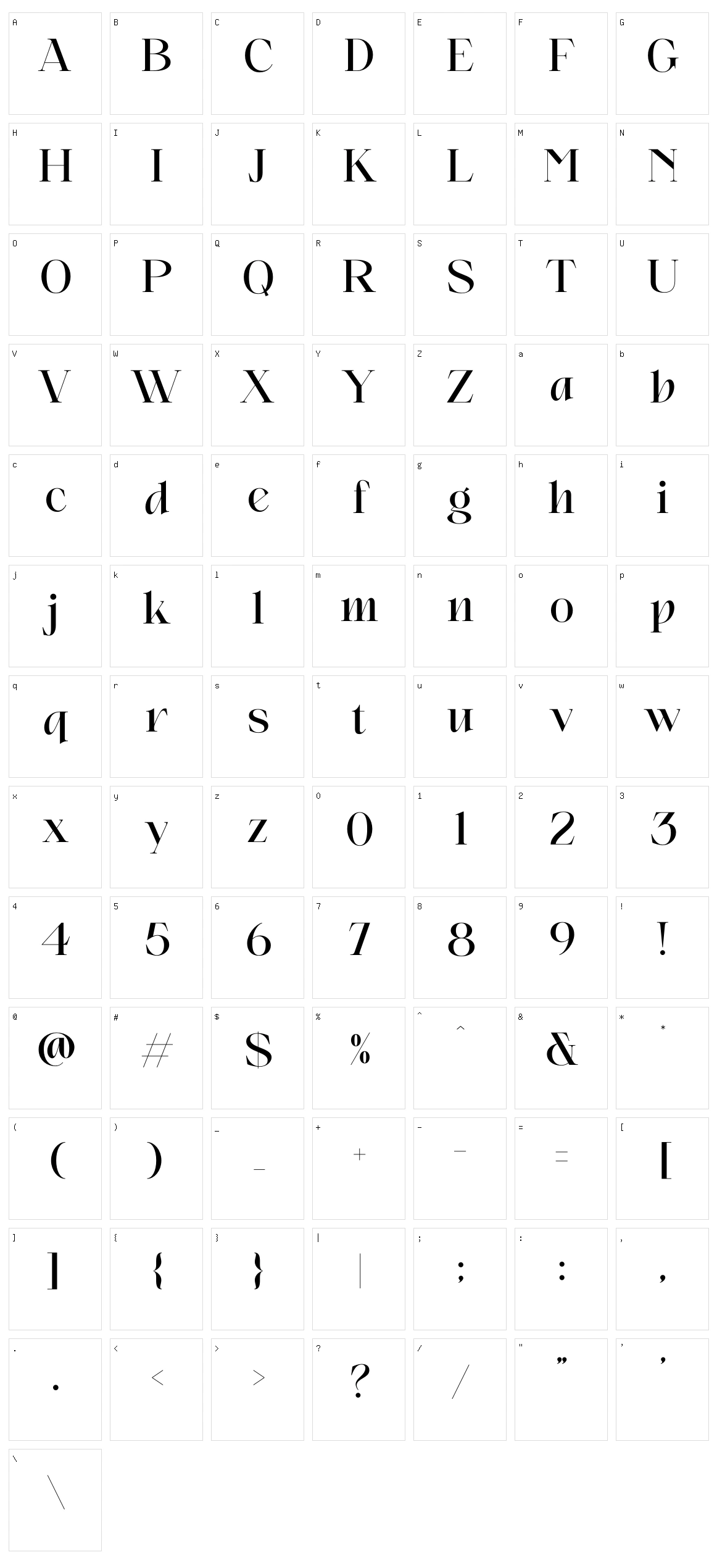
The free font Rimon Dustin is carefully designed by BrandSemut, showcasing a thoughtful balance of creativity and usability and falls under the Serif font style. When you download the ZIP file, it contains only 17.06 KB of font files, making it lightweight and quick to download. Please review the license details below to understand permitted usage and distribution rights. If license information is not available, we recommend using this font for personal projects only or contacting the author directly for commercial usage permissions.